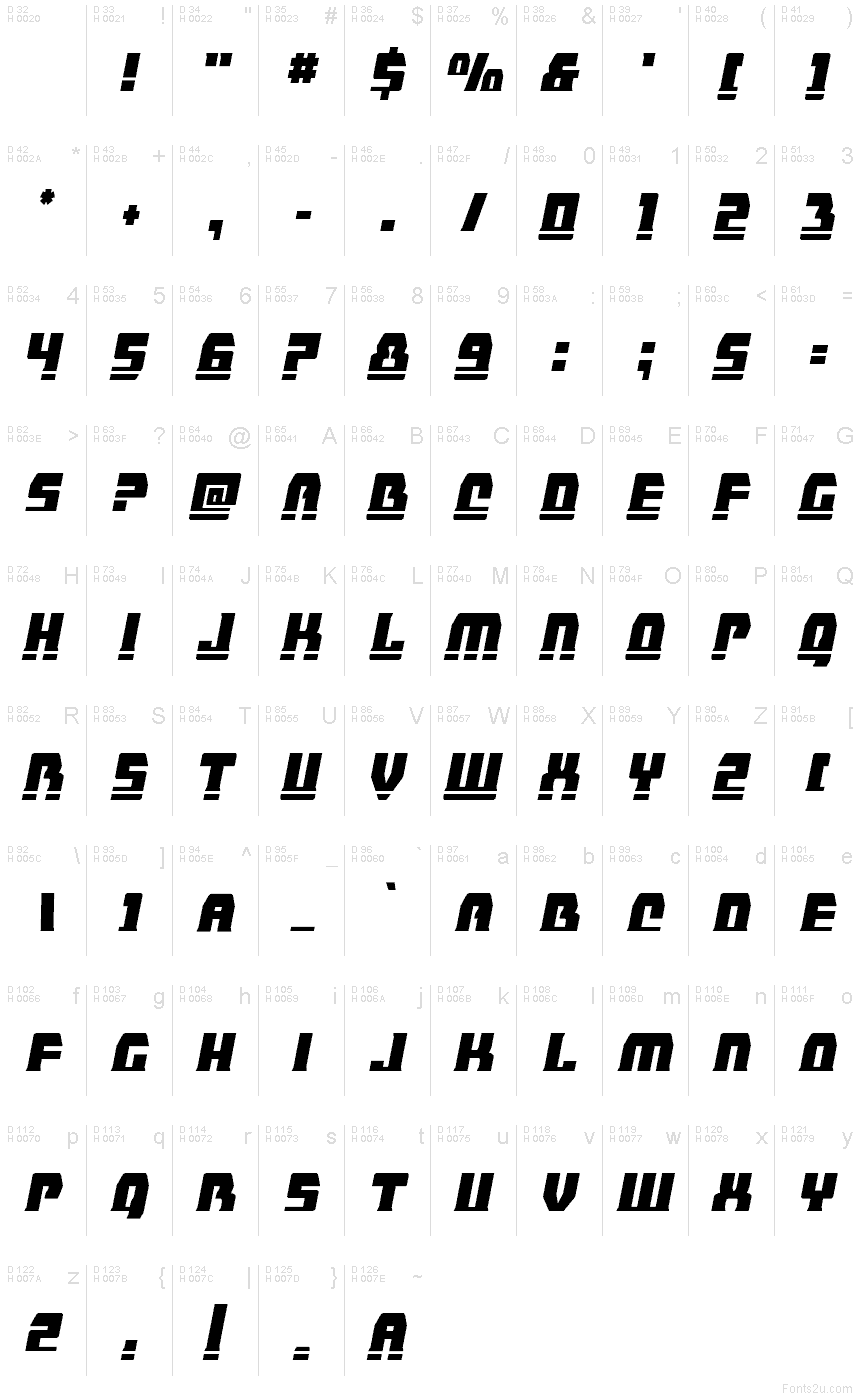
Librator Bar Italic
Librator Bar Italic font by Iconian Fonts is a bold, techno display font that combines angular features with a high-impact design. Each letter features straight edges and clear corners that are the true reflections of its Bar-inspired theme. Retro influence plays an evident part in the free font’s style in which fine lines appear in its body.